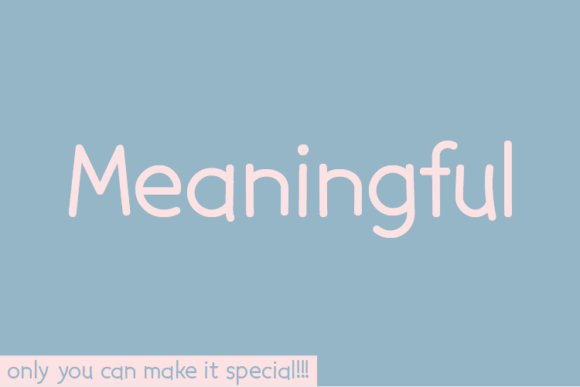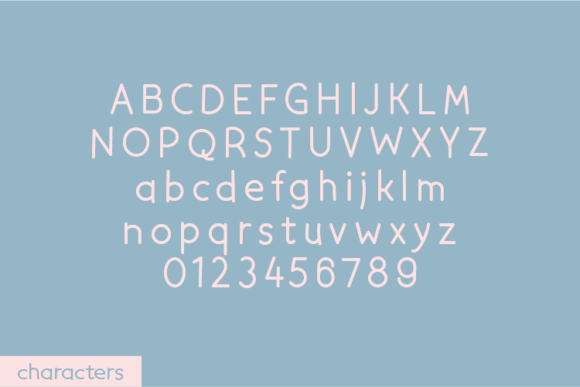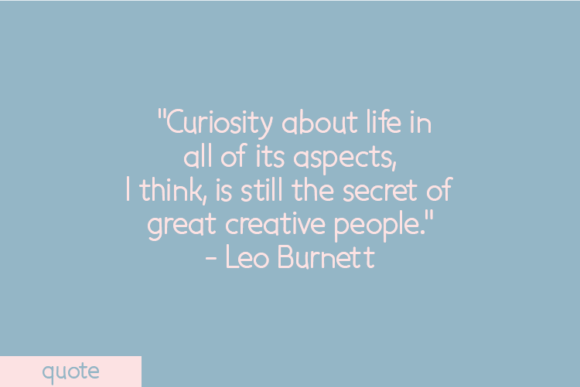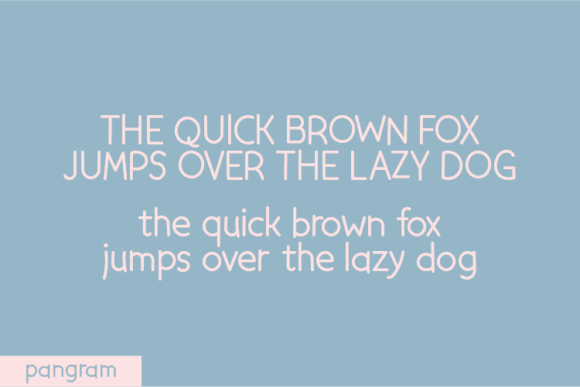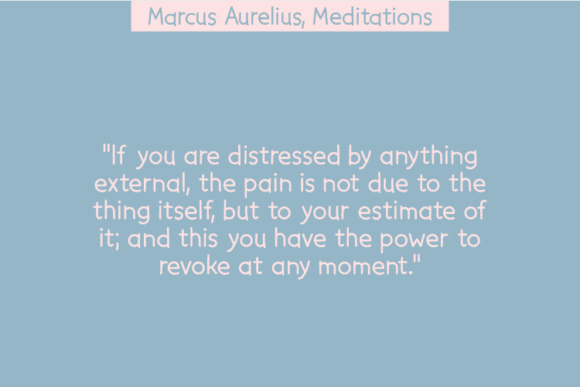
Meaningful Font
About Meaningful Font
The Meaningful Font Download is a natural handwritten typeface that captures authenticity and charm. Unlike digital fonts that undergo heavy refinement, Meaningful was designed without changing a single node in each character’s indentation. This approach preserves its raw, handcrafted rhythm, giving the font an organic and distinctive look.
Because of its natural strokes, Meaningful adds warmth and personality to any design project. It combines casual creativity with clear readability, which makes it versatile for both personal and professional use. You can apply it to quotes, notes, social media graphics, apparel designs, product packaging, posters, and stationery. No matter the medium, Meaningful brings an authentic human touch to your work.
Features of Meaningful Font
• Authentic handwritten style with an organic flow
• Original creation method without altering nodes
• Complete character set with uppercase, lowercase, numbers, and punctuation
• Readable yet creative strokes for versatile use
• Adaptability across both print and digital projects
Best Uses for Meaningful Font
The Meaningful Font Download works in a variety of creative scenarios. For example, it can make inspirational quotes stand out on social media. It also looks excellent on t-shirts, hoodies, tote bags, or merchandise, giving products a personal and unique touch.
In addition, Meaningful enhances journals, planners, greeting cards, and invitations, where a handwritten style adds warmth and originality. It is equally strong for product packaging and labels, especially for handmade or organic goods. Furthermore, it creates distinctive logos and branding elements that communicate authenticity. Finally, it shines in posters, flyers, and promotional graphics, where its handcrafted strokes catch attention.
Why Choose Meaningful Font
Designers prefer the Meaningful Font Download because it emphasizes authenticity over perfection. By keeping every indentation untouched, the font captures the raw beauty of handwriting. As a result, it connects with audiences on a more personal level than polished, generic fonts.
Unlike many handwritten styles, Meaningful balances creativity, readability, and uniqueness. Its design feels artistic but stays practical, which allows it to work well for casual projects and professional branding alike. This combination ensures that your designs remain distinctive and approachable.
The Meaningful Font Download is a natural handwritten typeface that blends authenticity with versatility. With its handcrafted charm, raw strokes, and wide usability, it is perfect for quotes, apparel, packaging, stationery, posters, and more.